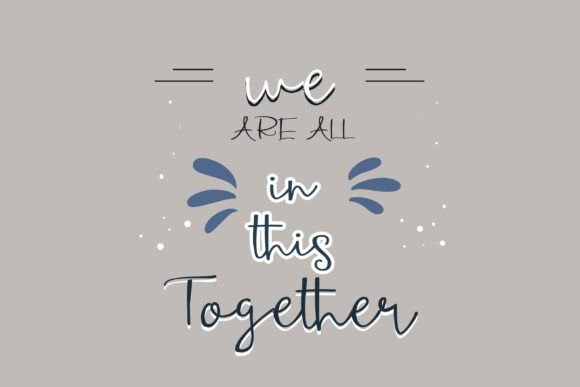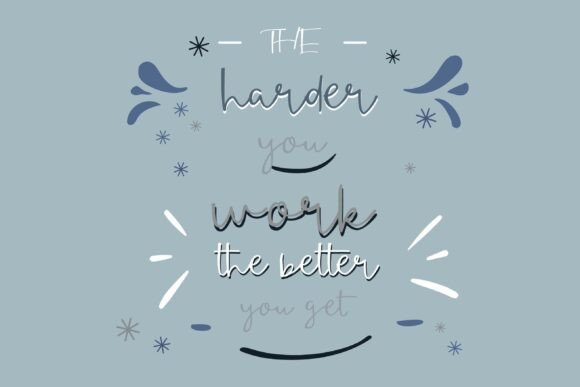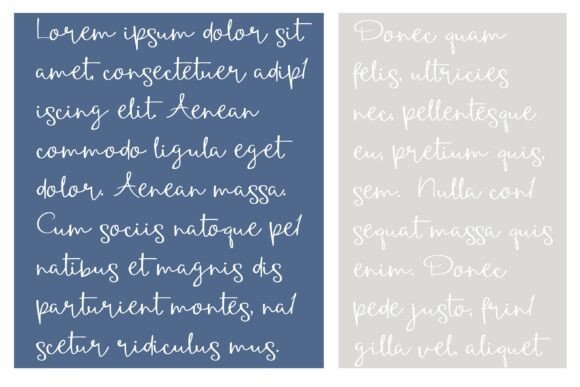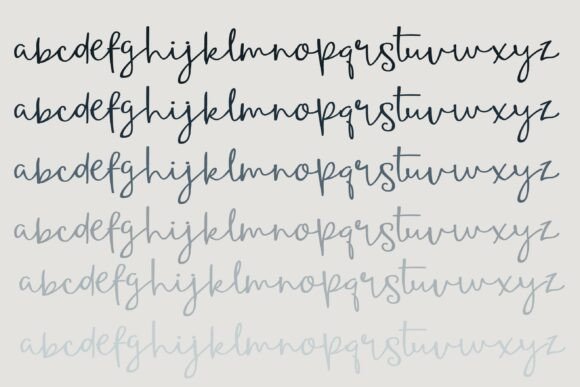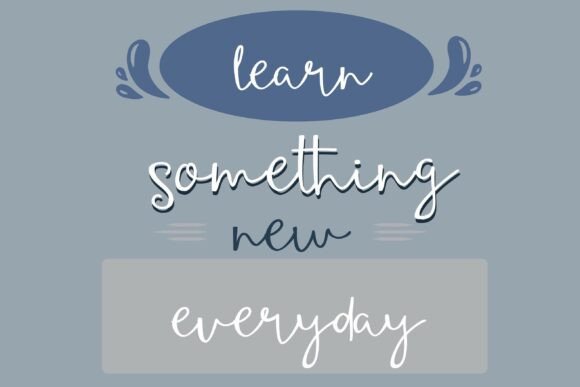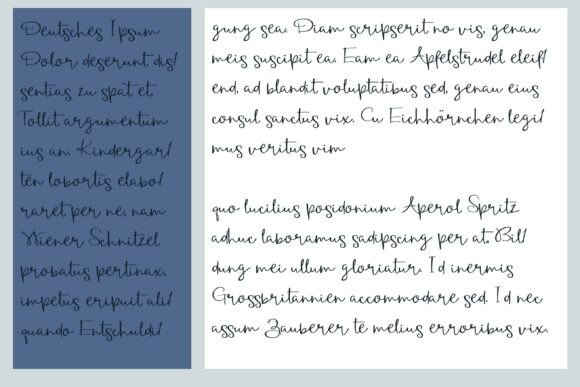
The Perfect Handwritten Touch: A Deep Dive into Authorize Font
I’ll never forget the time I was working on a wedding invitation project, and my client asked for a font that looked like it was written with a pen. I scoured the internet, trying out font after font, but nothing seemed quite right. That was until I stumbled upon Authorize Font, a beautiful hand-crafted script that has since become one of my go-to fonts for projects that require a personal touch.
What Makes Authorize Font Special?
Authorize Font is a casual script with a print-like uppercase, available in bold, condensed, expanded, and stencil versions. Its unique blend of elegance and informality makes it perfect for invitations, greeting cards, and other creative projects.
So, what do I love about Authorize Font? Here are a few things that make it stand out:
- ✨ Unique and eye-catching design: Authorize Font has a distinctive look that’s sure to grab attention.
- ✅ Versatile: With multiple weights and styles, you can use Authorize Font for a wide range of projects.
- 💕 Easy to read: Despite its handwritten feel, Authorize Font is surprisingly legible, even at smaller sizes.
Of course, no font is perfect, and Authorize Font has a few quirks:
- 🤔 Limited use in very formal contexts: While Authorize Font is elegant, it’s still a casual script font, so it may not be the best choice for very formal projects.
- ⚠️ Some letters may require manual kerning: As with any font, you may need to adjust the kerning on certain letters to get the best results.
The Story Behind Authorize Font
Authorize Font was designed with the intention of creating a font that felt both personal and elegant. The designer wanted to capture the feeling of handwritten text, while still maintaining a level of sophistication and refinement. The result is a font that’s perfect for a wide range of creative projects.
| What is Authorize Font? | Authorize Font is a hand-crafted script font with a print-like uppercase, available in bold, condensed, expanded, and stencil versions. |
| Is Authorize Font suitable for formal projects? | While Authorize Font is elegant, it’s still a casual script font, so it may not be the best choice for very formal projects. |
| Does Authorize Font support OpenType features? | Yes, Authorize Font supports OpenType features like glyphs and stylistic alternates, which can be used to add variety to your text. |